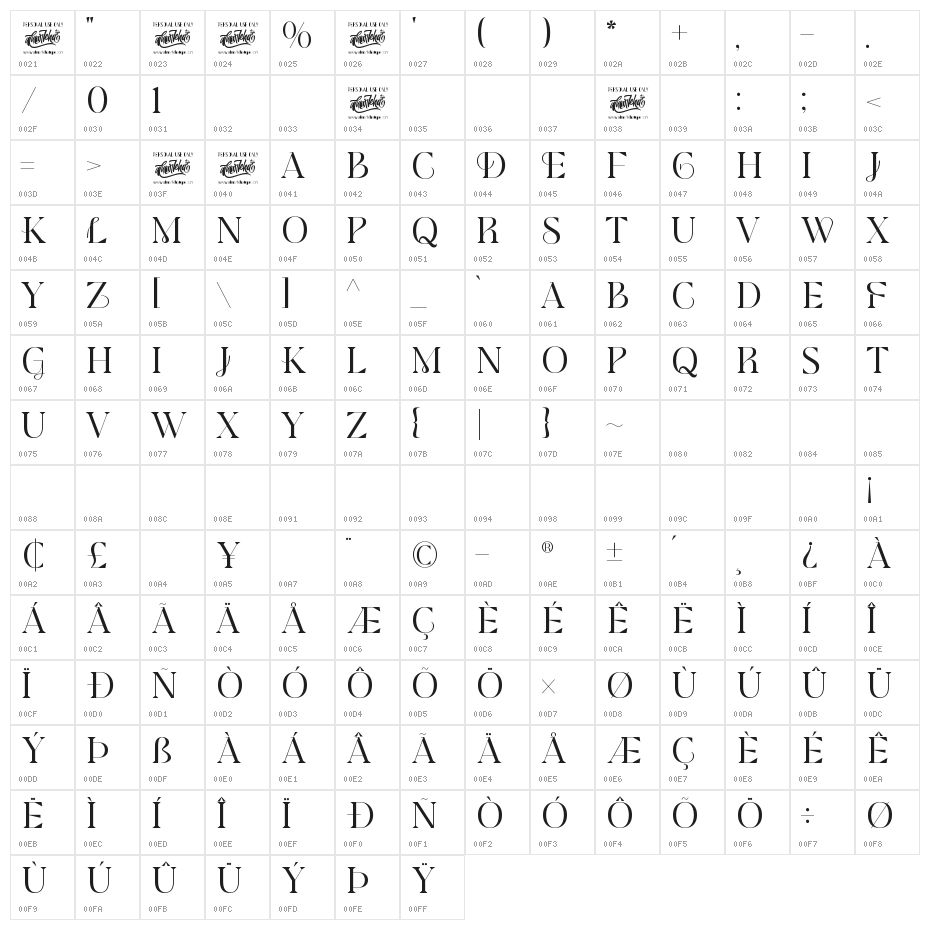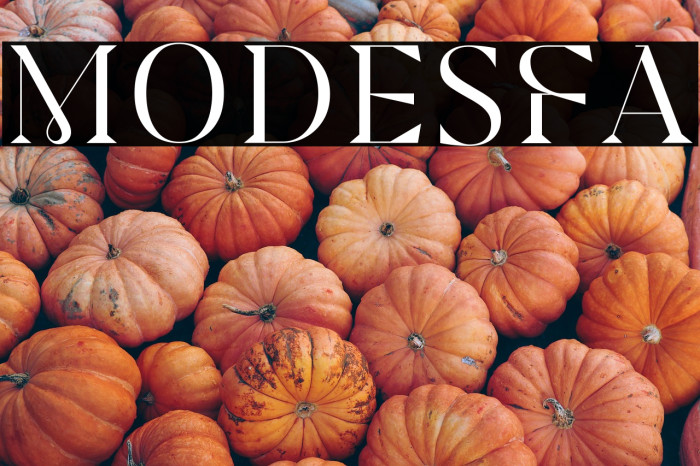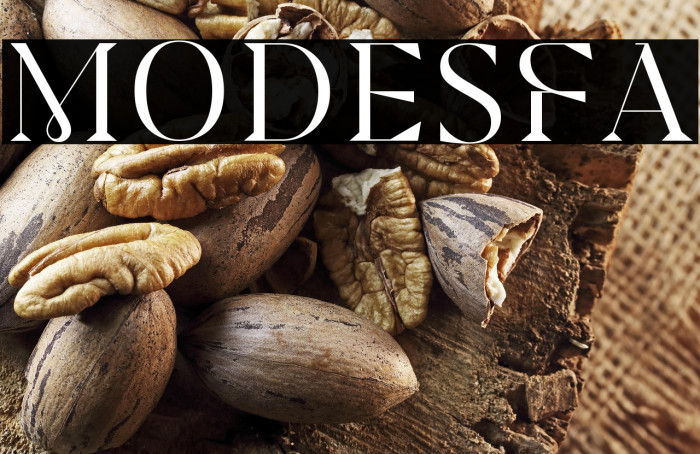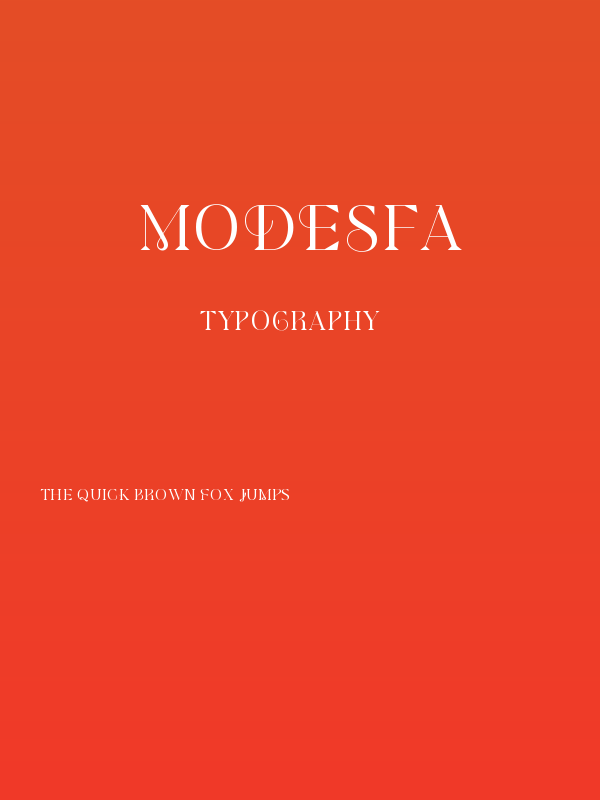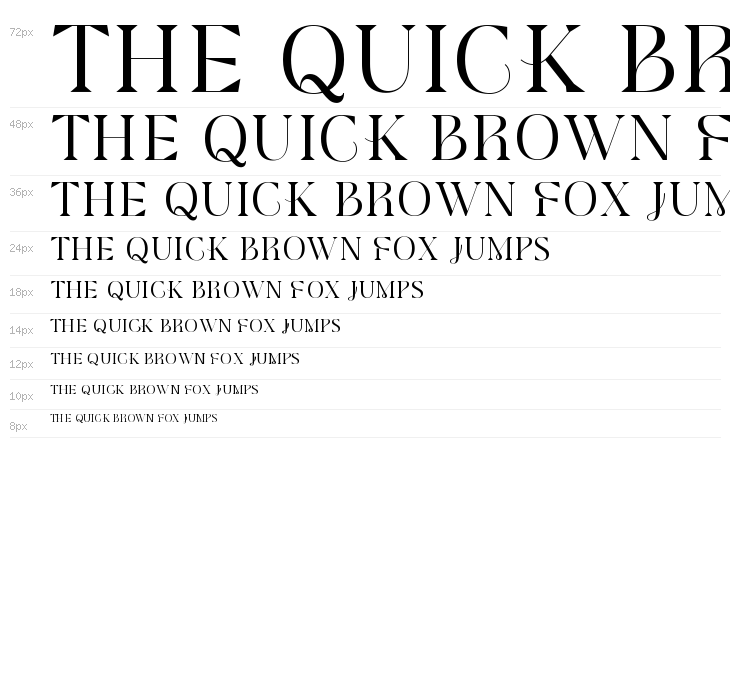
Modesfa Font
Modesfa Description
This font exhibits a sophisticated and elegant style, characterized by its high contrast between thick and thin strokes. The uppercase letters feature unique, decorative elements, particularly noticeable in the curves and flourishes of letters like 'G', 'J', and 'Q'. The lowercase letters maintain a more traditional serif appearance, providing a balanced contrast to the ornate uppercase. The numerals are bold and clear, ensuring readability. Special characters are designed with the same attention to detail, enhancing the font's overall aesthetic appeal. This font is ideal for projects that require a touch of elegance and sophistication.
| Overall Style | Elegant, Decorative |
| Use Case | Headlines, Logos, Invitations |
| Proposed Projects | Ideal for luxury branding, wedding invitations, editorial design, and high-end product packaging. |